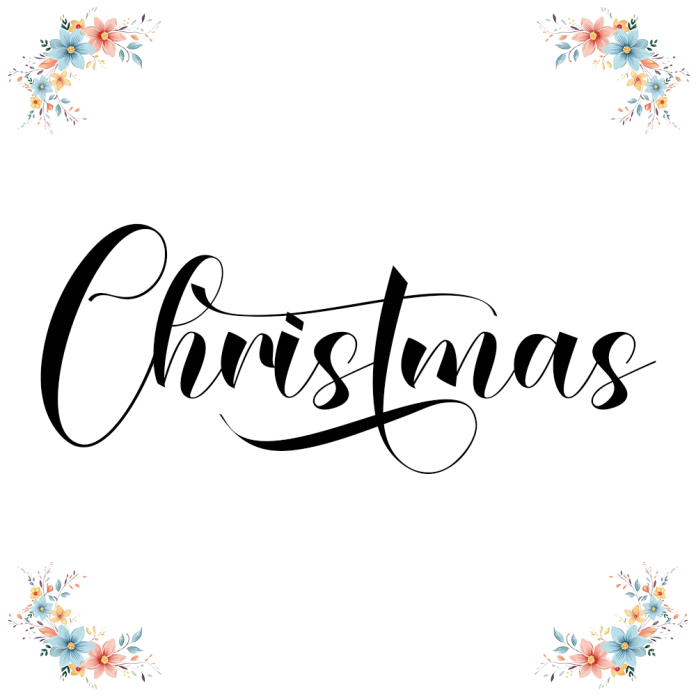
Christmas Font is a sweet and friendly handwritten font. Fresh and casual, this font is ideal for writing wedding invitations, cards, or any other design that might need a lovely touch.